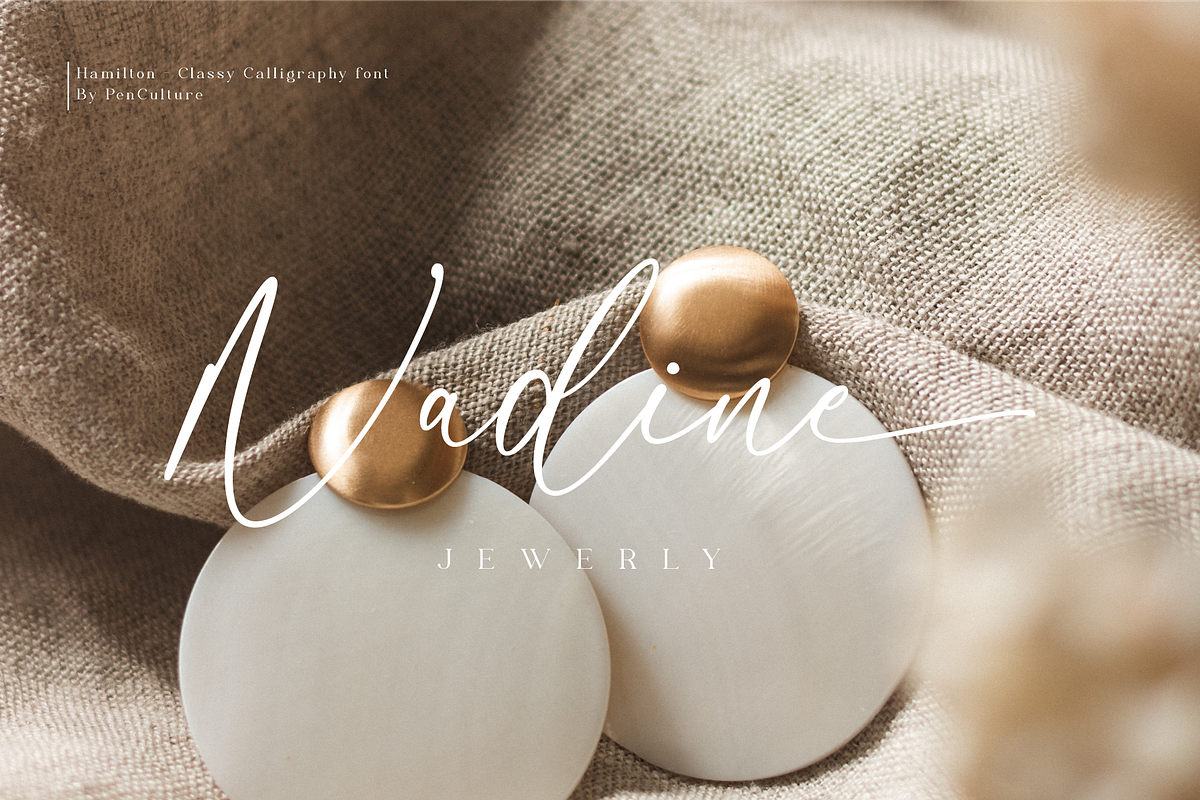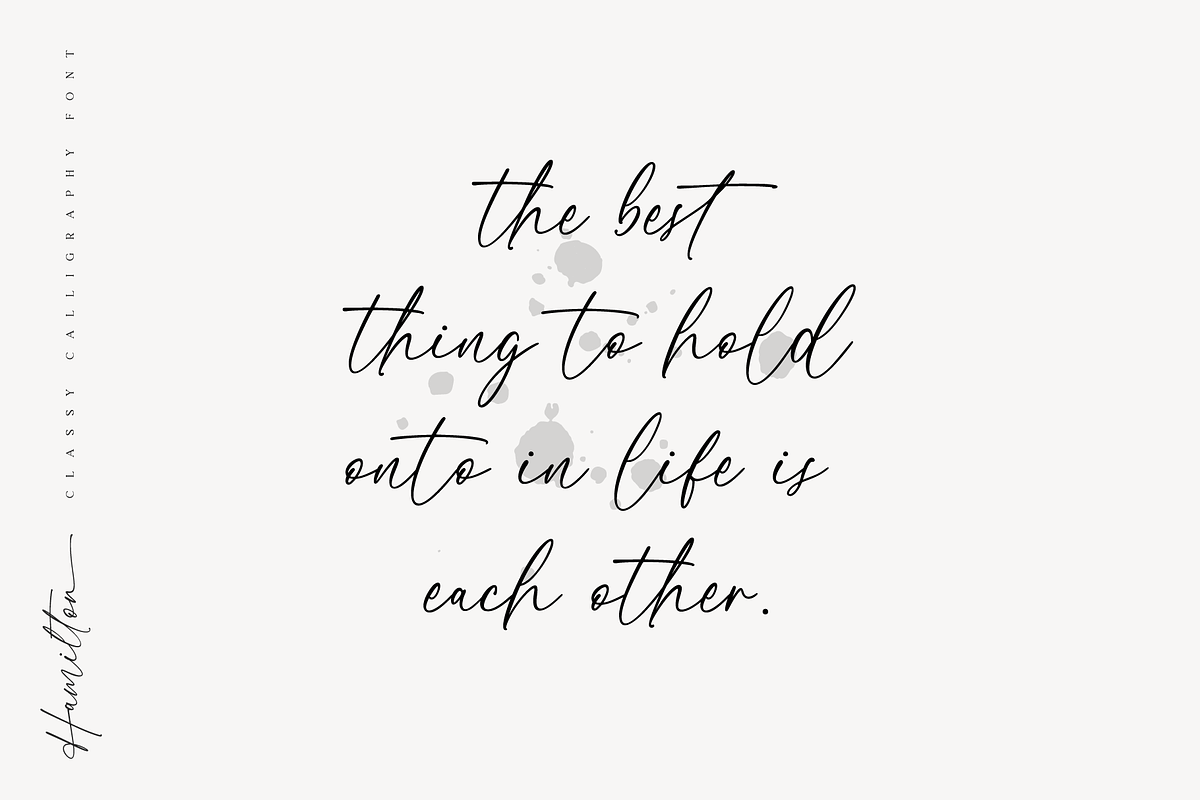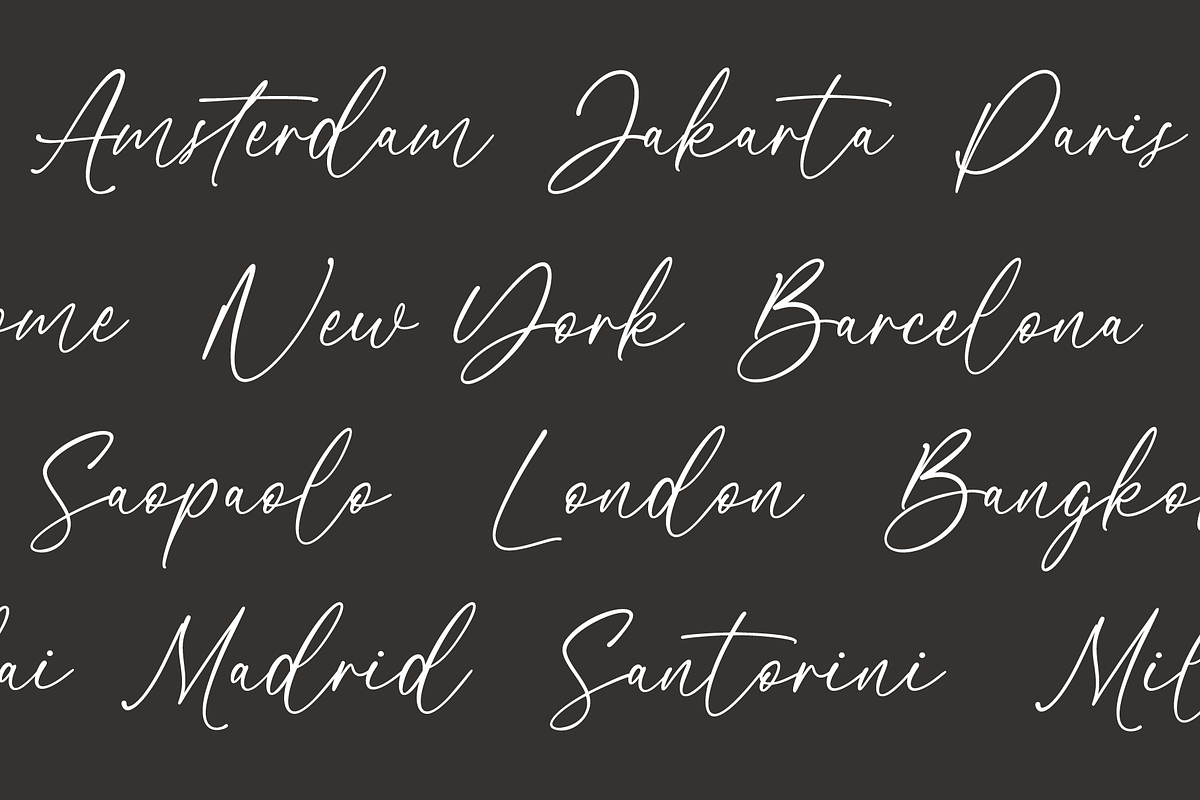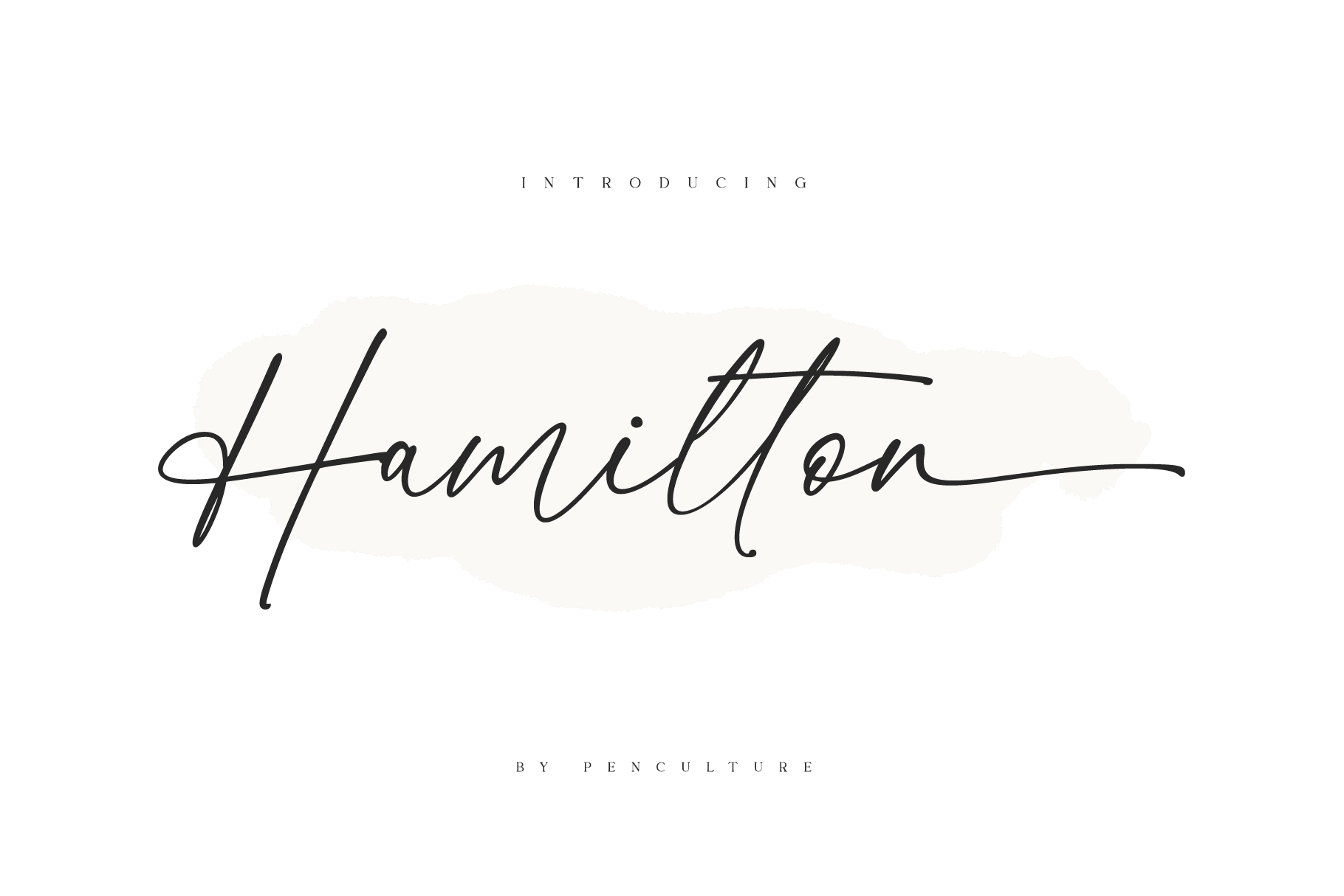
Hamilton // Classy Calligraphy Font
Proudly Present The New "Hamilton // Classy Calligraphy Font"
Hamilton is modern classy calligraphy font, this font come with beautiful ligature and lovely alternate. Hamilton has a very beautiful stroke and will be very suitable if applied to wedding projects, invitations, fashion, and much more.
- Number and punctuation
- Beautiful ligature
- Lovely alternate